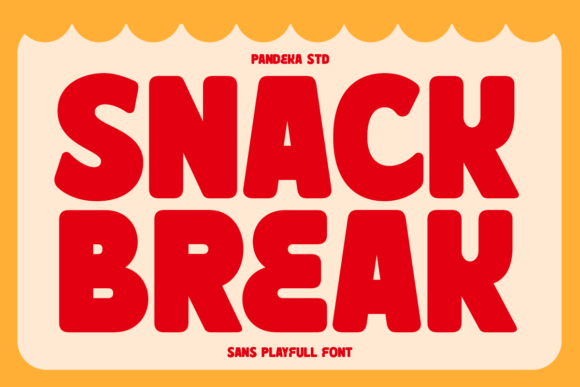
Snack Break Font: The Perfect Choice for Food Branding and Playful Advertising
Are you looking for a font that can add a touch of warmth and cheer to your food branding, menu designs, product packaging, or event posters? Look no further than Snack Break, a bold and friendly sans serif font that’s inspired by fun snack packaging, retro signage, and cozy café vibes.
What is Snack Break Font?
Snack Break is a sans serif font that’s designed to radiate warmth and cheer. Its rounded letterforms and chunky proportions make it perfect for grabbing attention and adding a playful touch to your designs. With a single Regular style, Snack Break delivers maximum personality in every letter, making it ideal for food branding, menu designs, product packaging, event posters, and playful advertising.
Inspirations Behind Snack Break Font
Snack Break is inspired by the fun and playfulness of snack packaging, retro signage, and cozy café vibes. The font’s rounded letterforms and chunky proportions are reminiscent of the bold and colorful graphics found on snack packaging, while its soft edges and lively curves evoke the warm and welcoming atmosphere of a cozy café.
Key Features of Snack Break Font
- Rounded letterforms: Snack Break’s rounded letterforms give it a friendly and approachable feel, making it perfect for food branding and playful advertising.
- Chunky proportions: The font’s chunky proportions make it highly legible and attention-grabbing, even at large sizes.
- Soft edges and lively curves: Snack Break’s soft edges and lively curves add a touch of warmth and playfulness to its design.
- Single Regular style: With a single Regular style, Snack Break delivers maximum personality in every letter, making it easy to use and versatile.
- Multilingual support: Snack Break includes multilingual support, making it perfect for use in global branding and advertising campaigns.
Use Cases for Snack Break Font
Snack Break is a versatile font that can be used in a variety of creative projects, including:
- Food branding: Snack Break is perfect for food branding, from bakery logos to restaurant menus and product packaging.
- Menu designs: The font’s bold and playful design makes it ideal for menu designs that need to grab attention and add a touch of personality.
- Product packaging: Snack Break’s rounded letterforms and chunky proportions make it perfect for product packaging that needs to stand out on store shelves.
- Event posters: The font’s bold and playful design makes it ideal for event posters that need to grab attention and add a touch of personality.
- Playful advertising: Snack Break is perfect for playful advertising campaigns that need to add a touch of warmth and cheer.
Benefits of Using Snack Break Font
There are many benefits to using Snack Break font in your creative projects, including:
- Unique and memorable designs: Snack Break’s bold and playful design makes it perfect for creating unique and memorable designs that grab attention.
- Flexibility: The font’s single Regular style makes it easy to use and versatile, perfect for a variety of creative projects.
- Global appeal: Snack Break’s multilingual support makes it perfect for use in global branding and advertising campaigns.
- Time-saving: With its single Regular style and comprehensive character set, Snack Break saves you time and effort in your design projects.
Tips for Using Snack Break Font
Here are some tips for using Snack Break font in your creative projects:
- Use it boldly: Snack Break is a bold font, so don’t be afraid to use it boldly and make a statement.
- Experiment with colors: The font’s playful design makes it perfect for experimenting with different colors and adding a touch of personality to your designs.
- Pair it with other fonts: Snack Break can be paired with other fonts to add contrast and interest to your designs.
- Use it consistently: To create a cohesive brand identity, use Snack Break consistently across all your designs.
Snack Break font is a bold and friendly sans serif font that’s perfect for food branding, menu designs, product packaging, event posters, and playful advertising. With its rounded letterforms, chunky proportions, and soft edges, Snack Break radiates warmth and cheer, making it ideal for adding a touch of personality to your designs. Its single Regular style, comprehensive character set, and multilingual support make it a versatile and practical choice for creative projects around the globe.
- What is Snack Break font?: Snack Break is a bold and friendly sans serif font that’s inspired by fun snack packaging, retro signage, and cozy café vibes.
- What is Snack Break font used for?: Snack Break is perfect for food branding, menu designs, product packaging, event posters, and playful advertising.